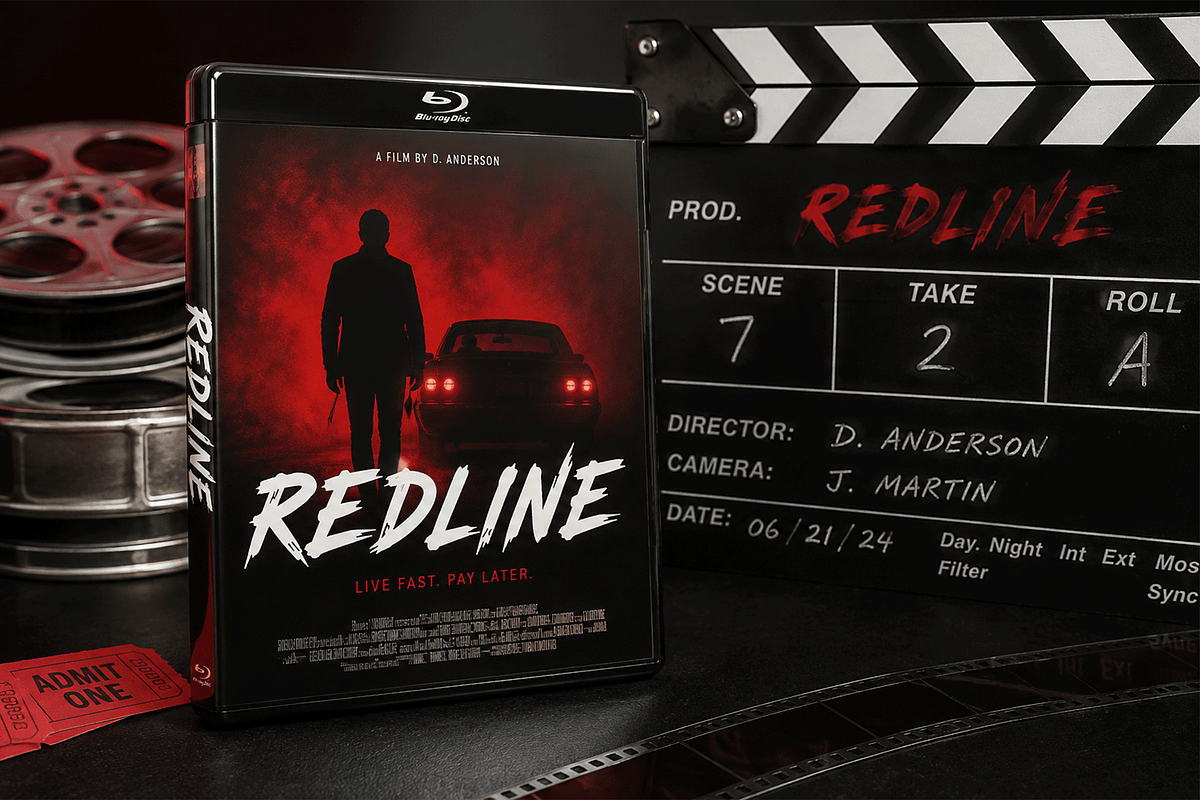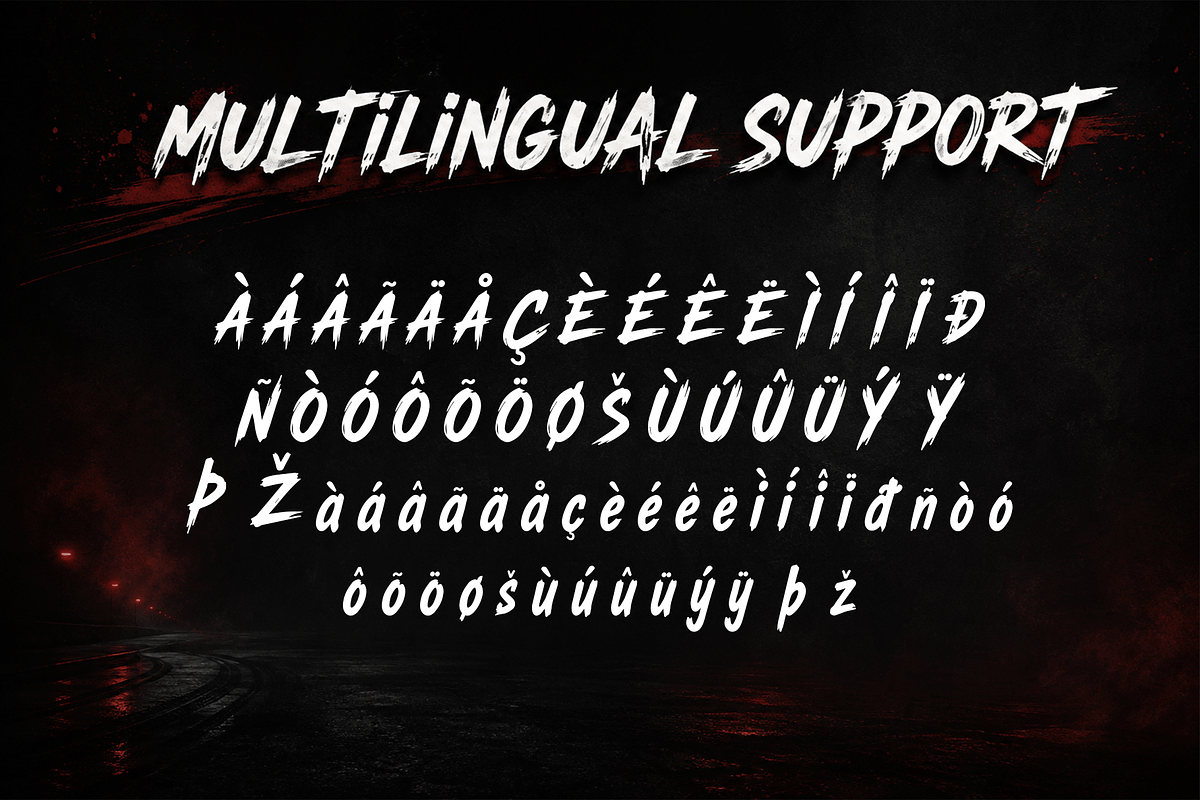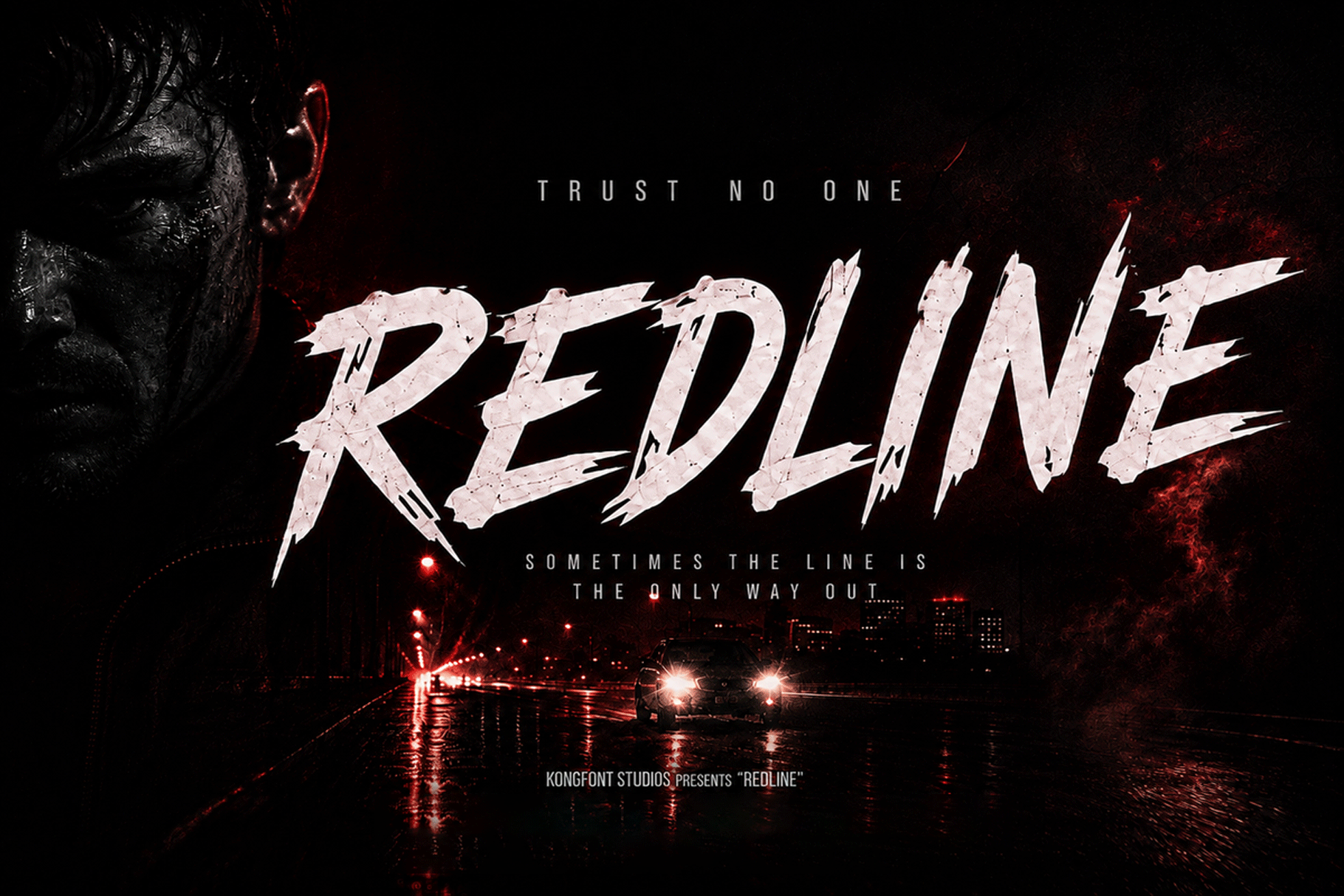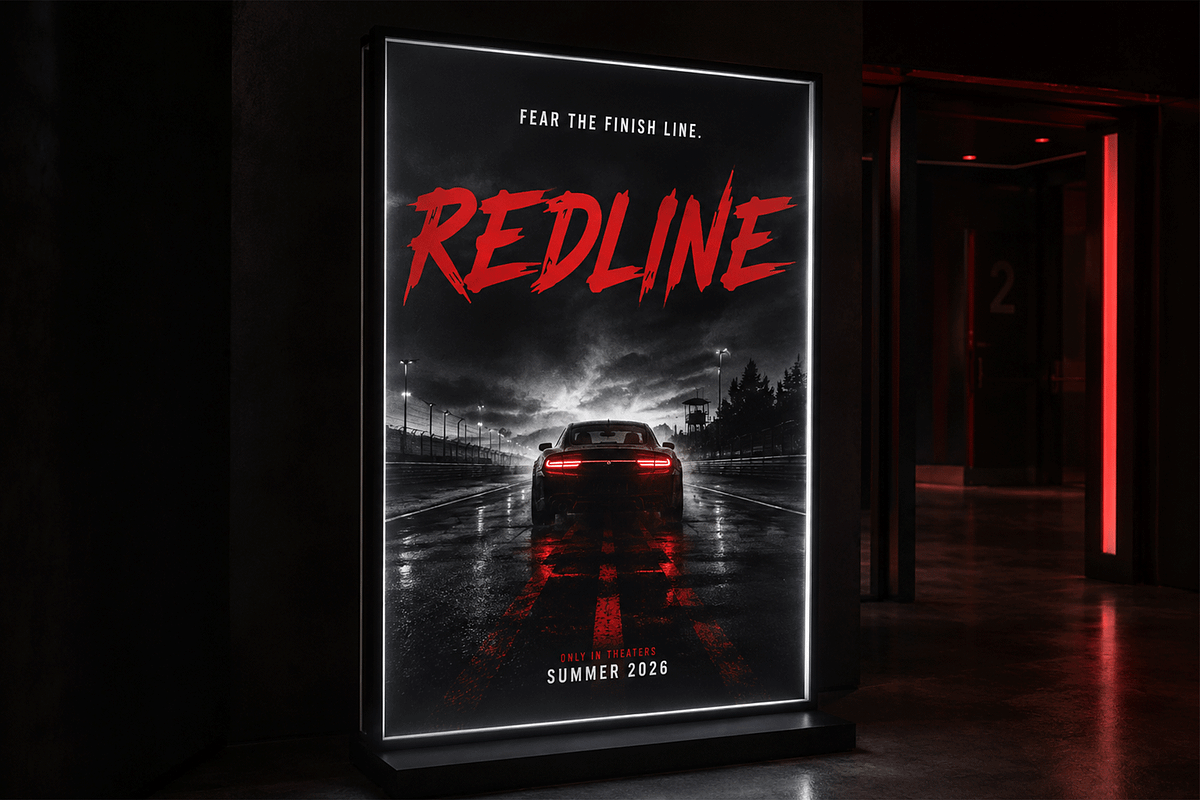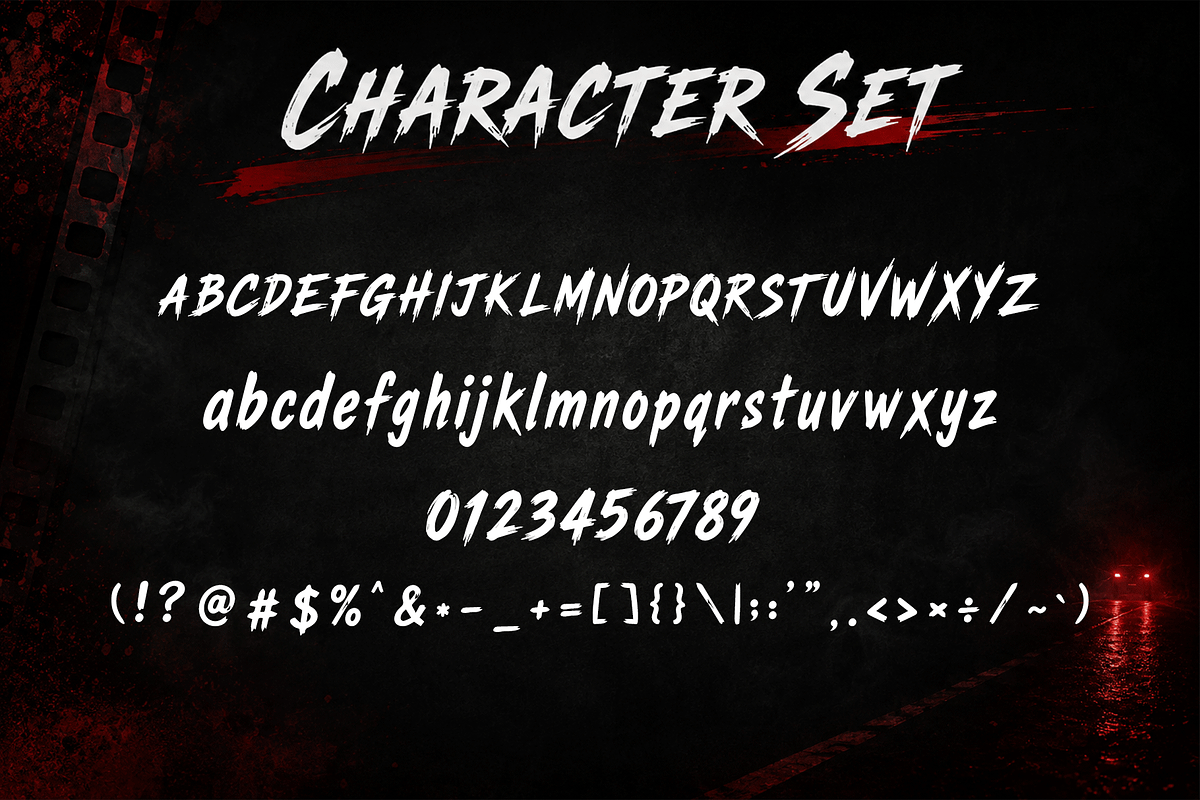
Redline - Brush Display Font
Redline - Aggressive Brush Display Font
Meet "Redline," an aggressive brush display font built with sharp strokes, rough edges, and intense motion. Inspired by street racing, action movies, extreme sports, and underground graphics, Redline delivers a powerful visual style that feels fast, rebellious, and full of adrenaline.
Redline works beautifully for automotive branding, motorsport graphics, racing events, action campaigns, streetwear, esports, music artwork, sports promotions, and cinematic projects. Its raw and energetic personality makes it a strong choice whenever your typography needs to feel intense, dramatic, and impossible to ignore.